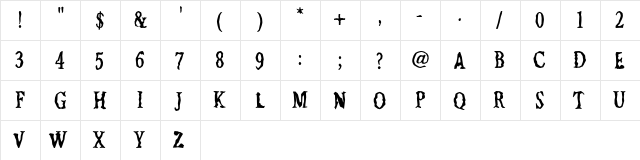
Jilted Medium Font Preview
Jilted Medium
Design Context for Jilted Typeface
Jilted is a composed and adaptable typeface that performs quietly and consistently across a wide range of design contexts.